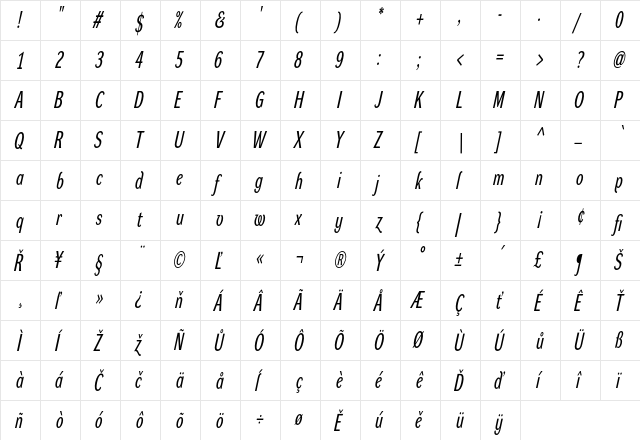
Dynamo RXC Regular
Design Context for Dynamo RXC Typeface
Dynamo RXC offers clean, dependable letterforms without strong stylistic allegiance, making it a practical choice for designers who need flexibility.